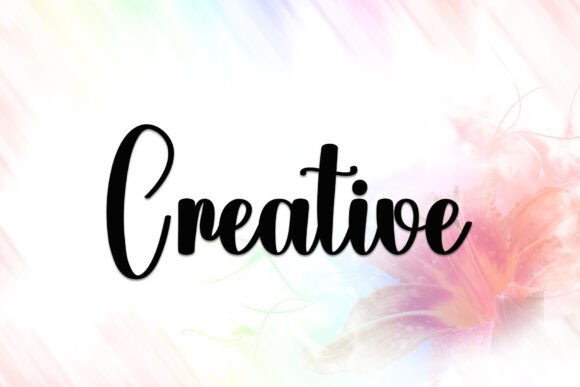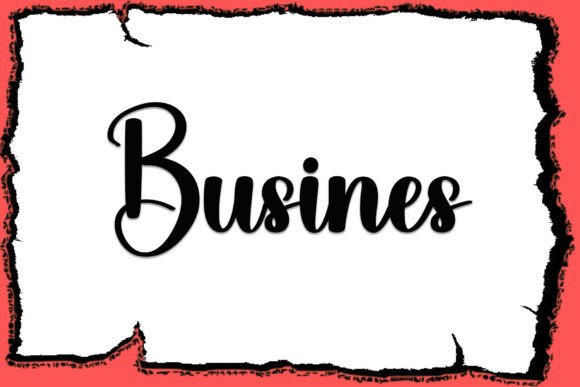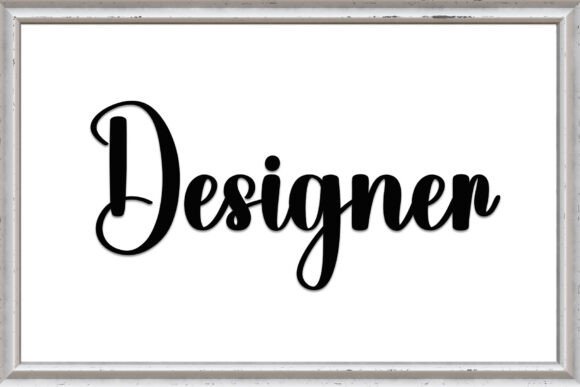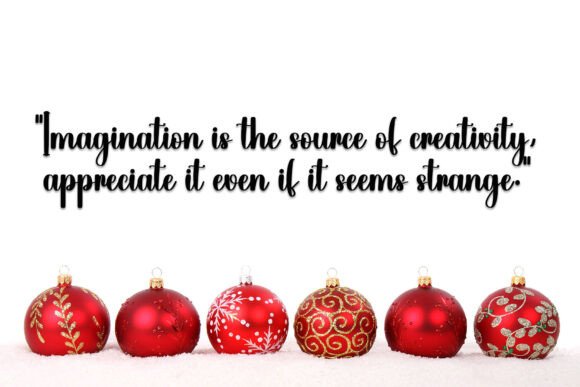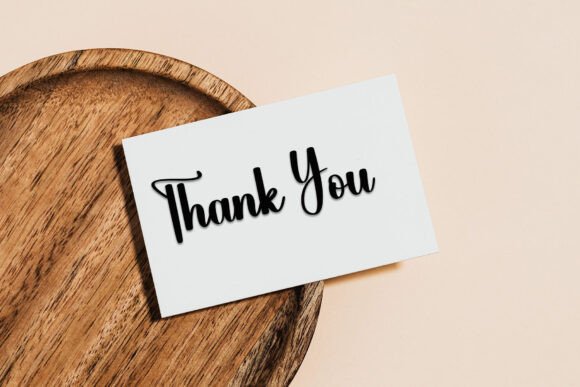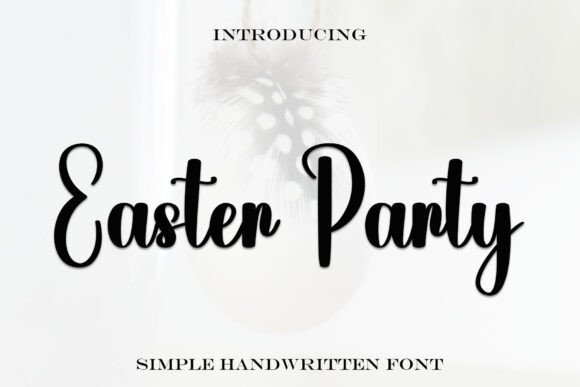
Easter Party Font: Elevate Your Designs with Elegance
Are you looking for a font that adds a touch of sophistication and whimsy to your designs? Look no further than the Easter Party font, a beautiful handwritten font that is perfect for a variety of projects. With its elegant touch and timeless style, this font is sure to capture the hearts of designers and crafters alike.
What is Easter Party Font?
Easter Party is a neat and beautiful handwritten font that is described by an elegant touch, perfect for your favorite projects. This font is designed to add a touch of sophistication and whimsy to your designs, making it ideal for a variety of applications, from party invitations and greeting cards to branding and packaging.
Key Features of Easter Party Font
- Elegant Touch: Easter Party font features an elegant touch that adds a level of sophistication to your designs.
- Handwritten Style: This font is a beautiful example of handwritten typography, with a natural and fluid feel.
- Timeless Style: The Easter Party font has a timeless quality that ensures your designs will remain stylish for years to come.
- Distinctive: This font is incredibly distinct, making it perfect for designers who want to create unique and memorable designs.
Why Choose Easter Party Font?
There are many reasons why designers and crafters love the Easter Party font. Here are just a few:
- Versatility: Easter Party font can be used for a wide range of projects, from party invitations and greeting cards to branding and packaging.
- Ease of Use: This font is easy to read and works well in both digital and print formats.
- Customization: Easter Party font can be easily customized to fit your design needs, making it perfect for designers who want to add a personal touch to their work.
- Emotional Connection: The Easter Party font has a warm and inviting feel that creates an emotional connection with your audience.
Easter Party font is perfect for designers and crafters who want to add a touch of elegance and whimsy to their designs. Whether you’re creating party invitations, greeting cards, or branding materials, this font is sure to impress. Here are some ideas for using Easter Party font:
- Party Invitations: Use Easter Party font to create beautiful and elegant party invitations that set the tone for your event.
- Greeting Cards: Add a personal touch to your greeting cards with Easter Party font, perfect for special occasions like Easter, birthdays, and holidays.
- Branding and Packaging: Use Easter Party font to create a unique and memorable brand identity that stands out from the crowd.
- DIY Projects: Easter Party font is perfect for DIY projects like scrapbooking, journaling, and crafting.
Easter Party font is a beautiful and elegant handwritten font that is perfect for designers and crafters who want to add a touch of sophistication and whimsy to their designs. With its timeless style and distinctive feel, this font is sure to capture the hearts of audiences everywhere. Whether you’re creating party invitations, greeting cards, or branding materials, Easter Party font is the perfect choice.